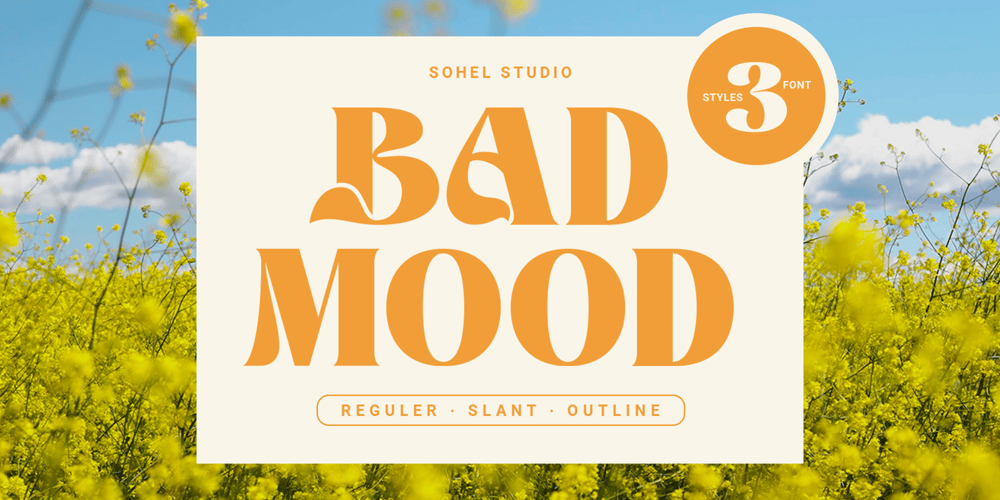
Badmood
Badmood font
Badmood Font Family was designed by Akhmad Husain Rifa’i and published by Sohel Studio. Badmood contains 3 styles and family package options. “Introducing Badmood, a sleek and modern bold font designed to make a statement. With its clean lines and strong presence, Badmood adds a touch of sophistication to any project. Perfect for headlines, logos, branding, and more, this font exudes confidence and style. Embrace the power of modern design with Badmood and elevate your creative projects to new heights.”